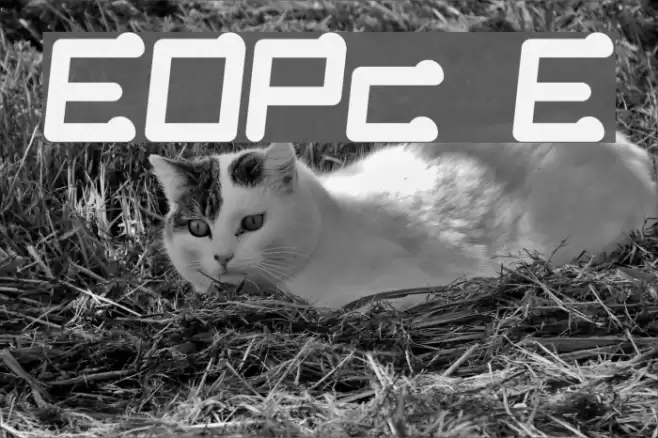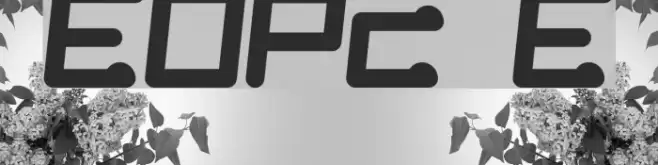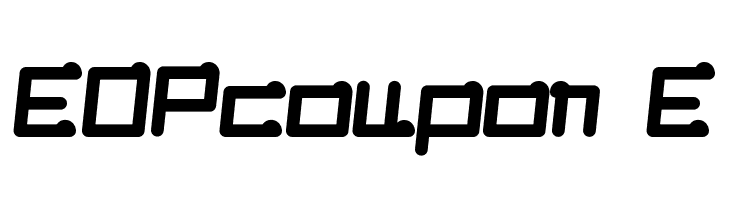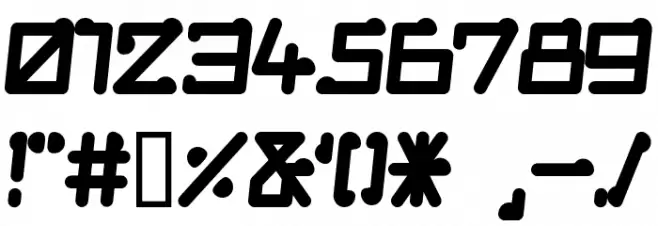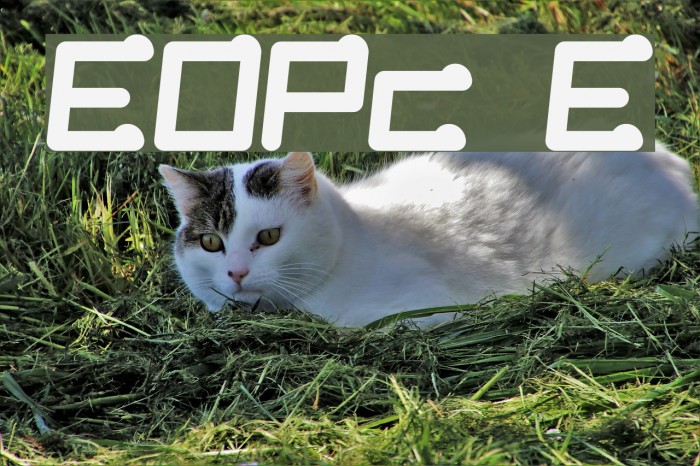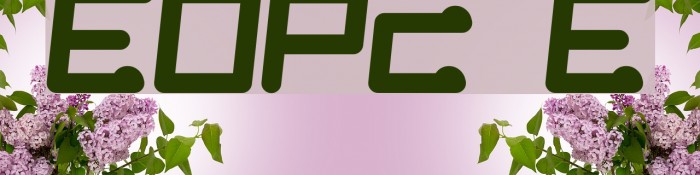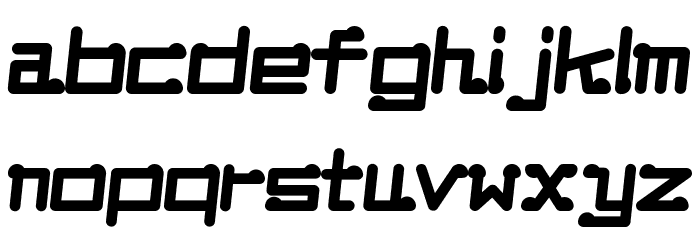
EOPcoupon E Font
EOPcoupon E Description
This font features a bold, rounded style with a futuristic and digital aesthetic. The characters are uniformly thick, with rounded corners and a consistent stroke width that gives it a cohesive look. The uppercase and lowercase letters maintain a similar height, contributing to a compact and uniform appearance. The numerals and special characters are designed to match the overall style, ensuring visual harmony across all elements. This font's unique design makes it stand out, suitable for projects that require a modern and tech-savvy look.
A bold, rounded font with a futuristic and digital style.
- Proposed Projects: Ideal for tech-related branding, digital interfaces, video game graphics, and futuristic-themed posters.